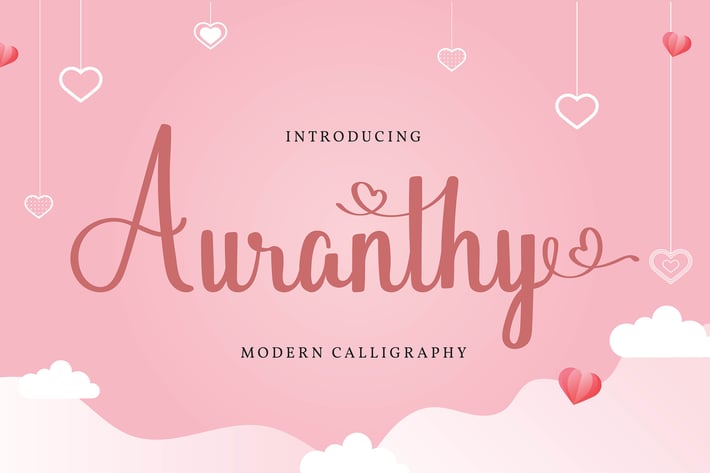
Auranthy | Modern Calligraphy Font
Auranthy | Modern Calligraphy Font with a calligraphy style, So beautiful on invitation like greeting cards, branding materials, business cards, quotes, posters, and more!